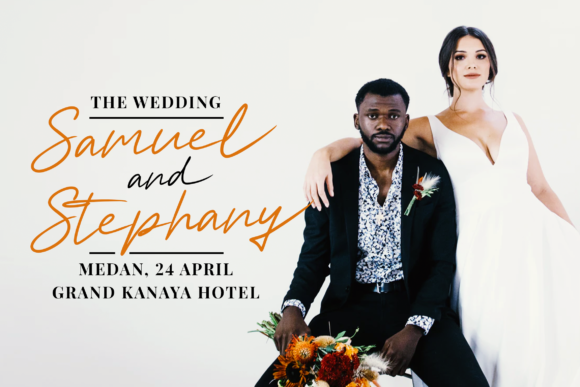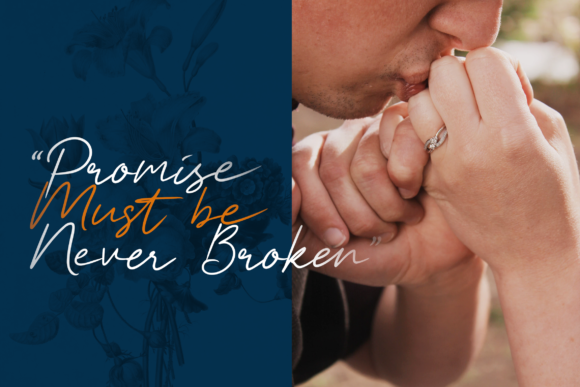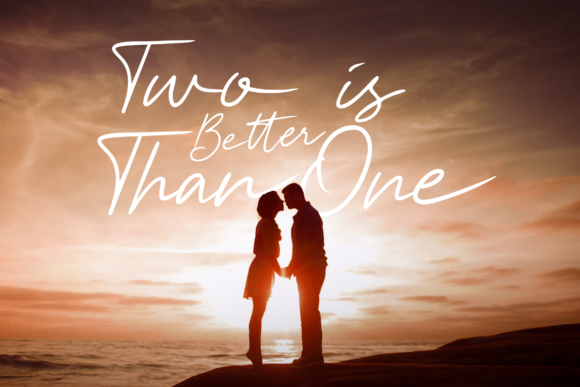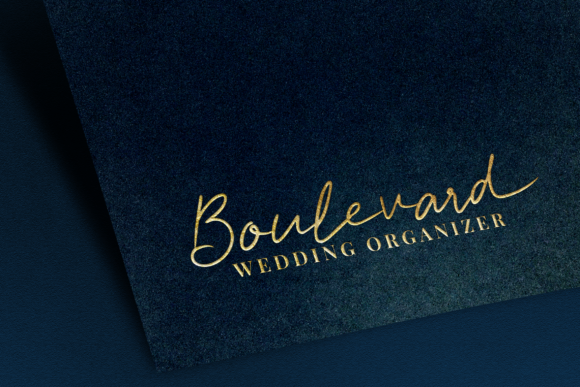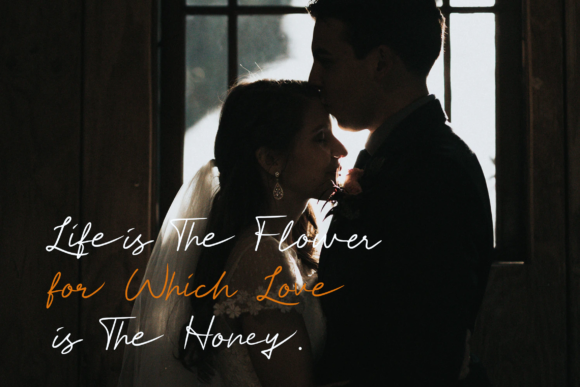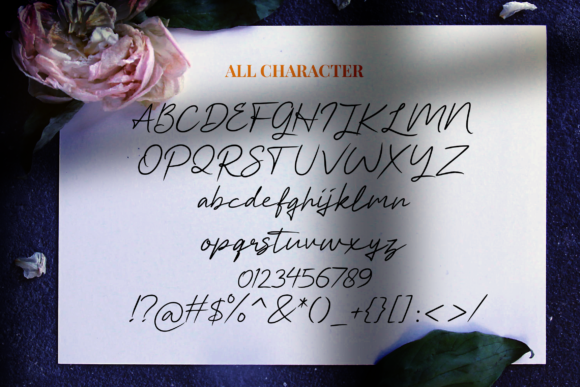
Ethereal Soul Font: Elevate Your Designs with a Lovely Wedding-Themed Script Font
Are you a designer or crafter looking for a beautiful and elegant font to enhance your wedding-themed projects? Look no further than the Ethereal Soul Font, a stunning script font designed to bring a touch of natural elegance to your creations. In this article, we’ll dive into the features and benefits of this lovely font, and explore how it can elevate your designs and inspire your creativity.
A Natural and Dainty Design
Ethereal Soul is a wedding-themed script font that boasts a natural and dainty design, perfect for creating romantic and whimsical projects. The font’s soft and flowing lines evoke a sense of elegance and sophistication, making it ideal for a variety of applications, including wedding invitations, branding projects, packaging, and more.
One of the standout features of the Ethereal Soul Font is its PUA (Private Use Area) encoding. This means that you can access all of the font’s glyphs and swashes with ease, giving you greater flexibility and creative control over your designs. With PUA encoding, you can effortlessly insert special characters, ligatures, and ornaments to add a personal touch to your projects.
Perfect for Wedding and Branding Projects
Ethereal Soul is specifically designed with wedding and branding projects in mind. The font’s elegant and refined aesthetic makes it perfect for creating beautiful wedding invitations, save-the-date cards, and other stationery. Additionally, its versatility and charm make it an excellent choice for branding projects, such as logos, business cards, and packaging.
Why Choose Ethereal Soul Font?
So, why should you choose Ethereal Soul Font for your next project? Here are just a few reasons:
- Unique and elegant design: Ethereal Soul boasts a distinctive and refined design that will set your projects apart from the rest.
- Highly versatile: This font is suitable for a wide range of applications, from wedding invitations to branding projects and packaging.
- PUA encoded: With PUA encoding, you can easily access all of the font’s glyphs and swashes to add a personal touch to your designs.
Tips for Using Ethereal Soul Font
To get the most out of Ethereal Soul Font, here are a few tips:
- Pair with complementary fonts: Combine Ethereal Soul with complementary fonts to create a unique and visually appealing typography.
- Experiment with swashes and glyphs: Take advantage of the font’s PUA encoding to add custom swashes and glyphs to your designs.
- Use for headlines and titles: Ethereal Soul Font is perfect for headlines and titles, where its elegant and refined design can shine.
In conclusion, Ethereal Soul Font is a beautiful and elegant wedding-themed script font that is perfect for designers and crafters looking to elevate their projects. With its natural and dainty design, PUA encoding, and versatility, this font is sure to inspire your creativity and help you create stunning designs. Whether you’re working on a wedding invitation, branding project, or packaging, Ethereal Soul Font is an excellent choice.